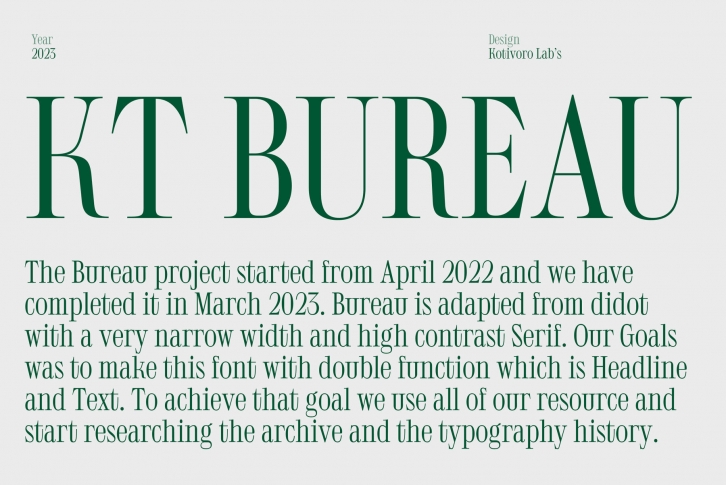
Bureau, a typeface inspired by the distinguished Didot, presents a harmonious fusion of narrow width and high-contrast serif. Designed with the ambitious goal of serving both headline and text purposes, this font embodies a delicate balance that caters to a variety of applications. To bring Bureau to life, a deep dive into the archives and the rich history of typography was undertaken, utilizing every resource at hand to ensure the typeface would be a true testament to the ingenuity of its creators.
The result of this meticulous research is a font that elegantly blends traditional and contemporary elements. Bureau is a versatile choice for those seeking to make a statement in projects ranging from editorial work to branding. Imbued with an air of sophistication, this typeface invites you to explore the possibilities that lie at the intersection of the past and the present, and to discover the allure of a font that transcends the boundaries of time.